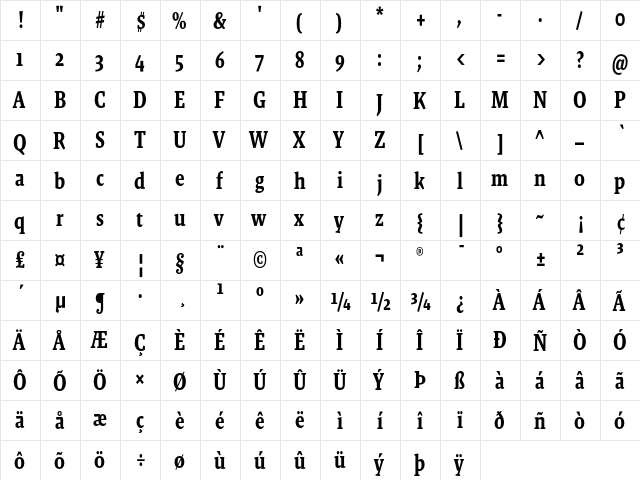
Malaga Narrow OT Med
Med · Emigre Inc. Xavier Dupre ·
Design Context for Malaga Narrow OT Typeface
Malaga Narrow OT is a composed and adaptable typeface that performs quietly and consistently across a wide range of design contexts. The condensed width makes it efficient for tight spaces without sacrificing legibility.